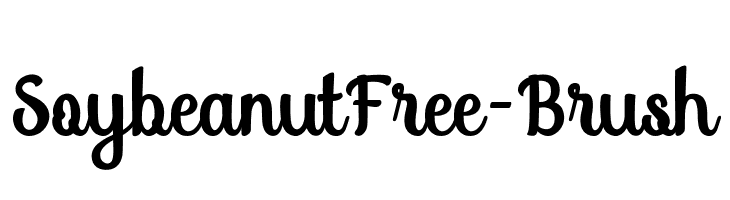
A bold, playful brush script with flowing strokes and a lively aesthetic.
A bold and playful brush script font with dynamic strokes.
A bold, playful handwritten font with thick, rounded strokes and a dynamic slant.